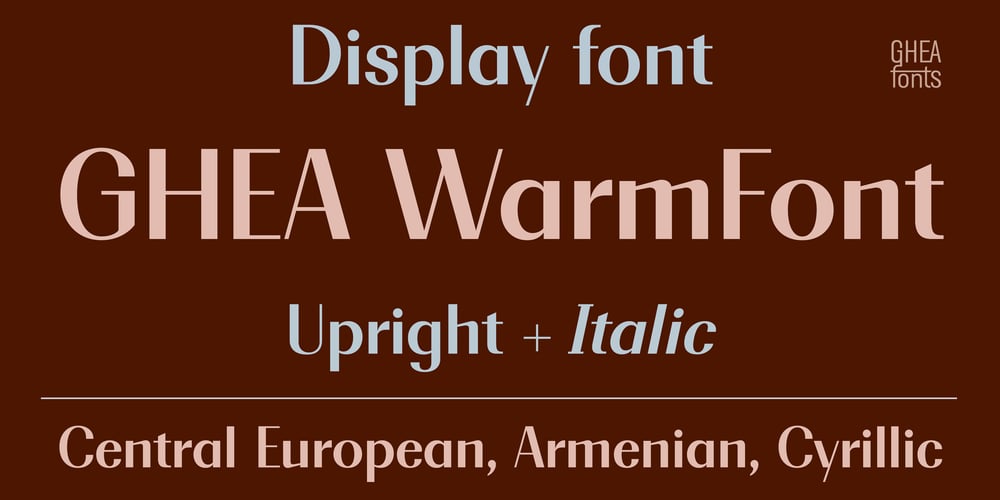
GHEA Warm Font Font Family was designed by Edik Ghabuzyan and published by Edik Ghabuzyan. GHEA Warm Font contains 2 styles and family package options. GHEA Warm Font is a non-serif style text, tytle and Display typeface.It has two weights- SemiBold and SemiBold Italic. The font is very elegant and easily readable.